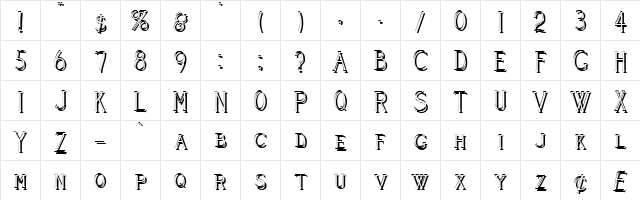
Cleaver's_Juvenia_Shadowed Normal
Design Context for Cleaver's_Juvenia_Shadowed Typeface
Cleaver's_Juvenia_Shadowed is built around its visual character rather than neutral utility — its distinctive forms are designed to make an impression at display sizes.
Font Pairing: Pair with a clean neutral sans-serif for body copy to let Cleaver's_Juvenia_Shadowed's character lead without overwhelming the composition.
Pro Tip: Treat Cleaver's_Juvenia_Shadowed as the centrepiece of your typographic hierarchy. One strong heading set in a decorative face can carry an entire layout.